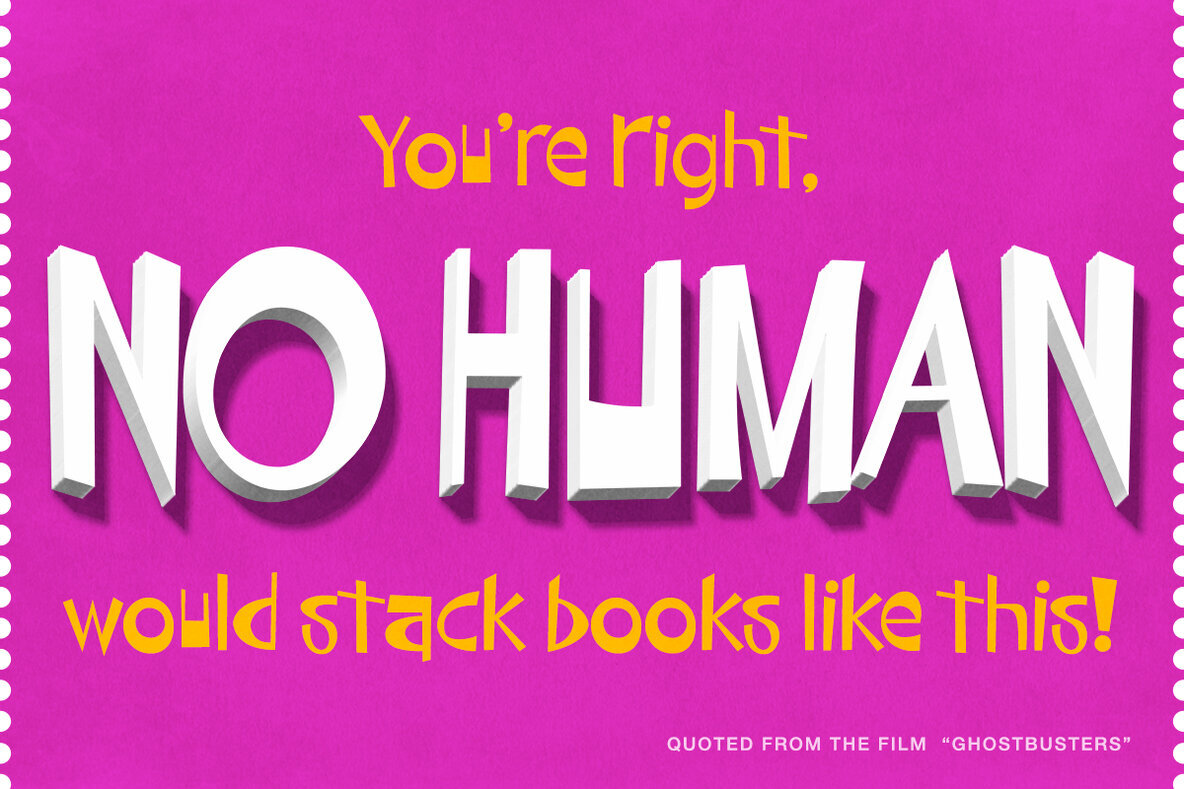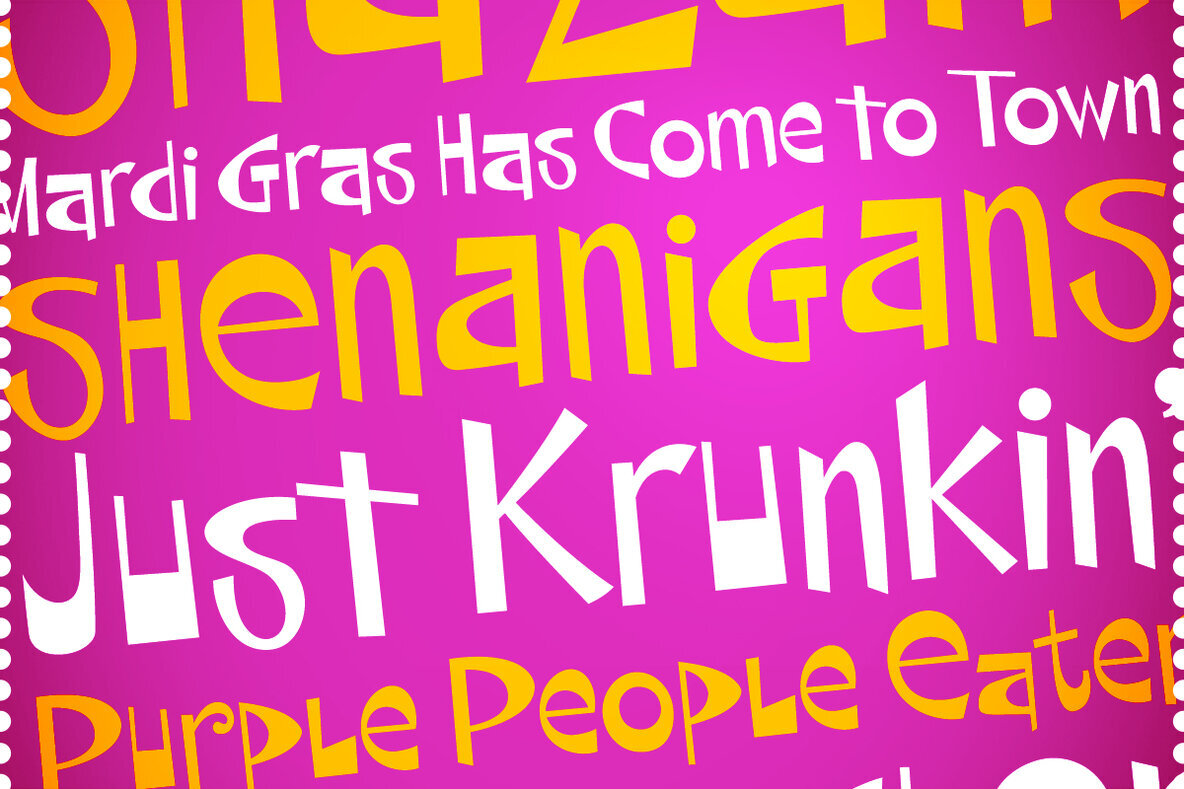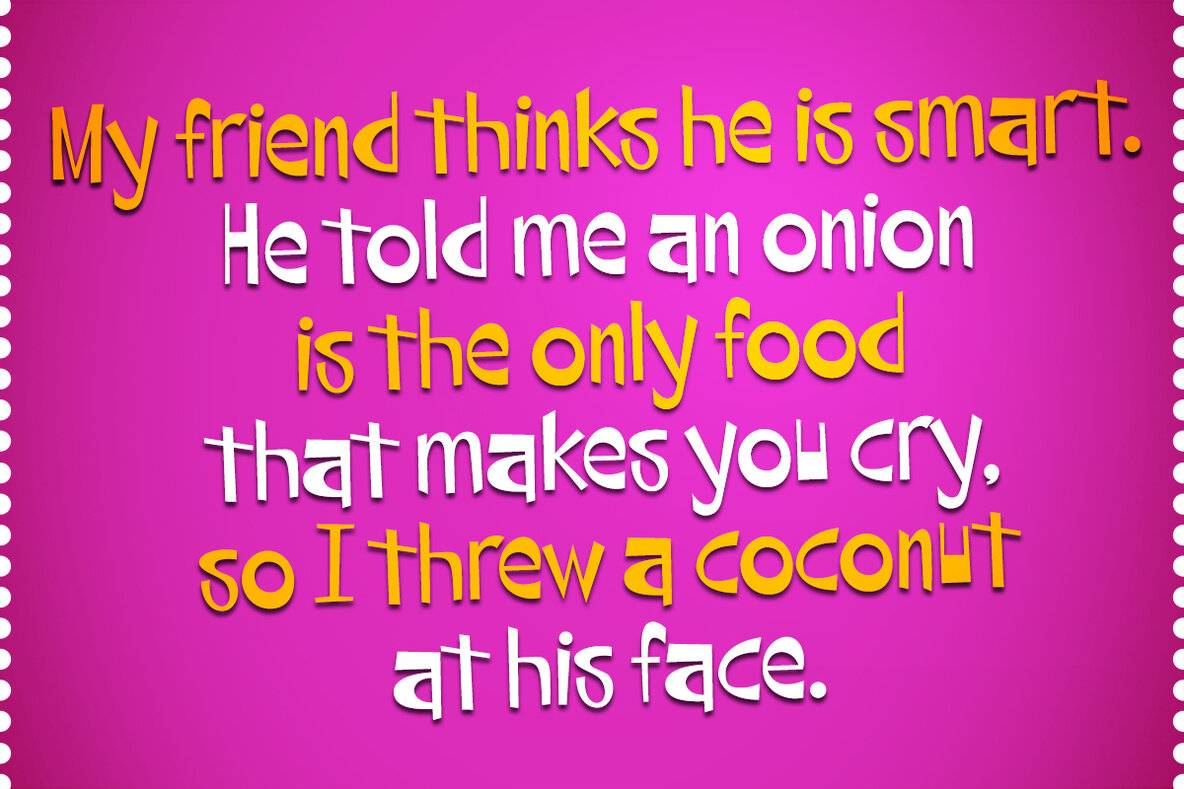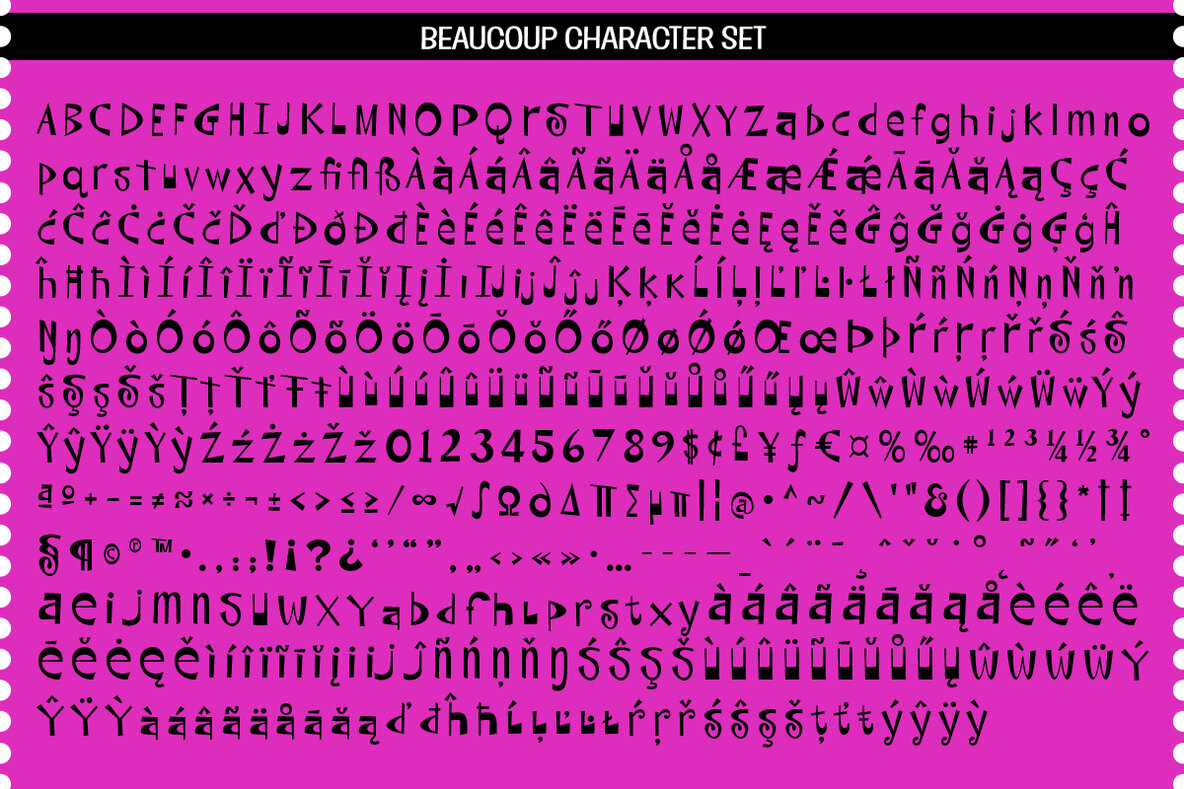
Beaucoup Font
Beaucoup PB
Beaucoup is a unique and energetic sans serif display typeface originating from the film typeface "Bippie" by Facsimile Fonts. With a fully developed character set, this typeface offers a wild yet legible design that's perfect for creatives looking to make a bold statement. Its playful and unconventional style is sure to capture attention and inspire innovative design projects.
Designed to inject a sense of fun into any layout, Beaucoup stands out with its off-the-wall charisma while maintaining readability. Ideal for creating eye-catching headlines, branding elements, and more, this typeface invites designers to explore its eccentric personality across a variety of applications. Whether you're designing for print or digital, Beaucoup is ready to transform your projects with its distinct flair.